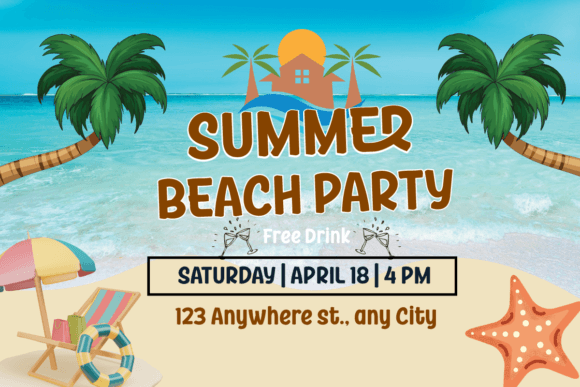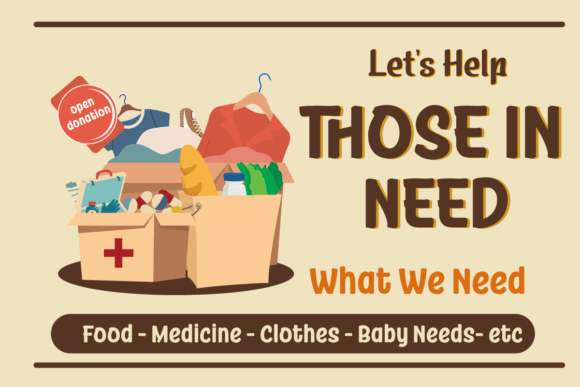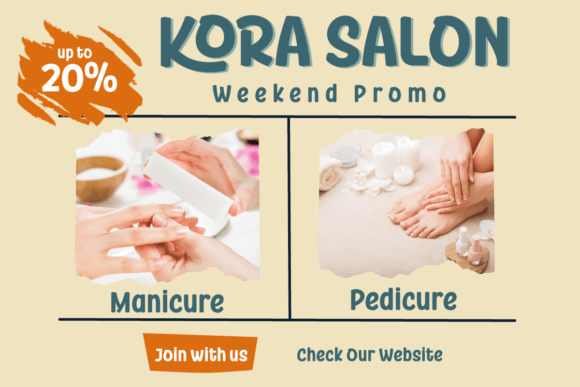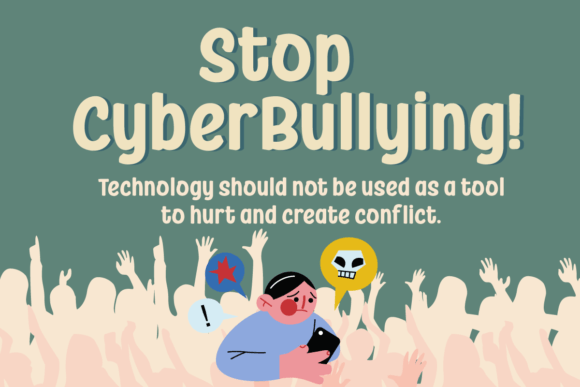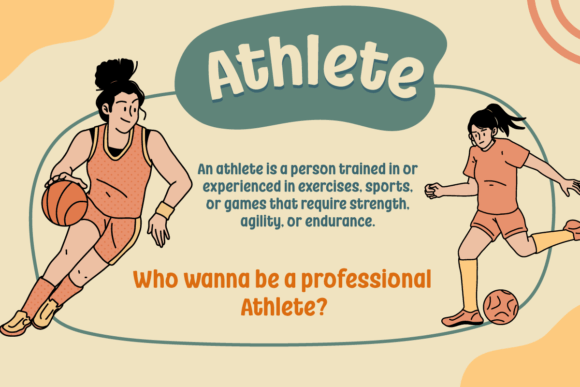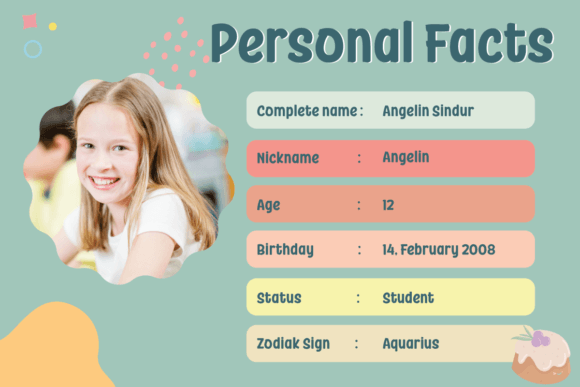
Introduction to Kerosby Font
Have you ever stared at a blank canvas, eager to bring a creative project to life, but struggling to find the perfect design element to spark your imagination? That’s where the magic of Kerosby Font comes in.
This delightful display font is a game-changer for designers looking to add a touch of whimsy and fun to their work. With its bouncy, playful characters, Kerosby Font is the ultimate design resource for anyone seeking to inject energy and creativity into their projects.
Key Features of Kerosby Font
- Designed with a unique aesthetic, making it perfect for designers looking for a distinctive and eye-catching font.
Honest Review: Kerosby Font
- Unique design aesthetic: The Kerosby Font has a distinctive style that sets it apart from other fonts in its category.
- High-quality graphics: The font files are well-designed and result in crisp, clear text, even at smaller sizes.
- Limited character set: The Kerosby Font has a relatively small character set, which may limit its usability for certain types of projects.
- No bold or italic variants: While the font is well-designed, it’s missing some essential variants like bold and italic, which can be a drawback for some designers.
Overall, I’m impressed with the Kerosby Font’s unique design and high-quality graphics. While it may have some limitations, it’s a great addition to any designer’s toolkit. If you’re looking for a distinctive font for your next creative project, the Kerosby Font is definitely worth checking out.
The Kerosby Font is commonly used for:
To get the most out of the Kerosby Font, use it in combination with other design elements, such as images and graphics. Experiment with different font sizes and styles to create a unique and eye-catching design.